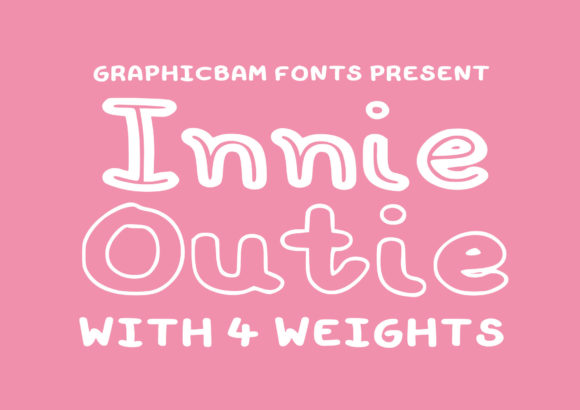
Dive into the world of Innie Outie Font, a display font that exudes fun and friendliness. Its playful curves and cheerful characters bring life to any design, making it the perfect choice for creating captivating flyers, eye-catching posters, and playful invitations.
Step into a realm of creativity where your imagination takes center stage. Innie Outie Font is not just a font; it's an artistic playground where you can let your ideas run wild. Whether you're crafting a whimsical cartoon, designing an interactive children's game, or simply adding a touch of charm to your latest project, this font will be your trusted companion.
Picture this: a vibrant flyer adorned with the Innie Outie Font, inviting everyone to a joyous carnival filled with laughter, games, and sweet treats. The font's cheerful curves mimic the playful spirit of the event, drawing attention and creating an irresistible allure.
Or envision a children's book brought to life with the Innie Outie Font. The letters dance and play across the pages, guiding young readers through magical adventures and capturing their imagination with every turn. The font's friendly nature creates a warm and welcoming atmosphere, making learning a delightful experience.
With Innie Outie Font, you'll discover a treasure trove of creative possibilities. Unleash your inner artist and embark on a journey of self-expression. Transform ordinary designs into extraordinary creations that resonate with your audience and leave a lasting impression.
Don't settle for ordinary fonts. Embrace the extraordinary with Innie Outie Font. Its playful spirit and enchanting charm will elevate your designs to new heights, leaving your audience spellbound. Download Innie Outie Font today and unlock a world of creative possibilities.